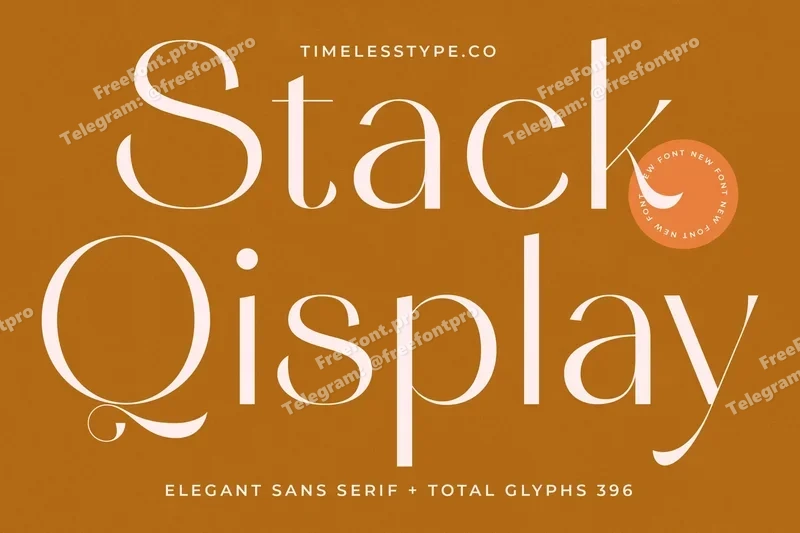
Stack Qisplay – Elegant Sans Serif Font
Stack Qisplay is an elegant sans serif display font with refined proportions and modern sophistication. Featuring sleek strokes, graceful curves, and stylish ligatures, this typeface is perfect for branding, editorial layouts, fashion magazines, packaging, posters, and luxury . Its timeless elegance and contemporary aesthetic make Stack Qisplay a versatile choice for both print and digital designs, adding class and creativity to every project.